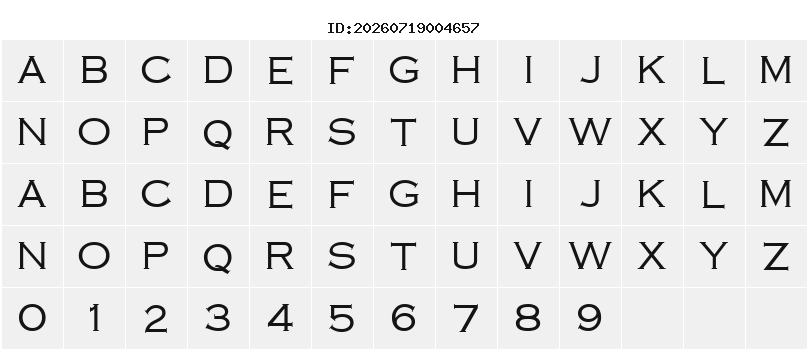
About CopperPot.ttf
CopperPot.ttf is a modern, elegant sans-serif font designed for ultimate readability and visual harmony. Perfect for branding, headlines, web design, and print materials.